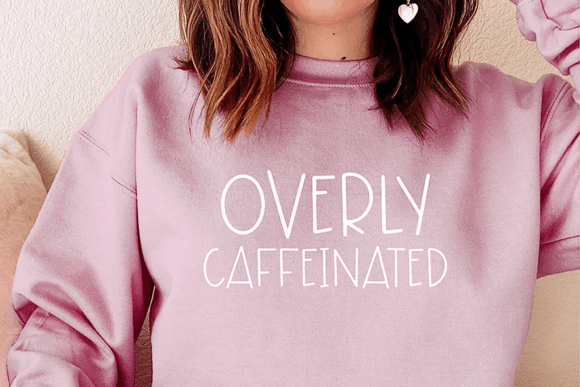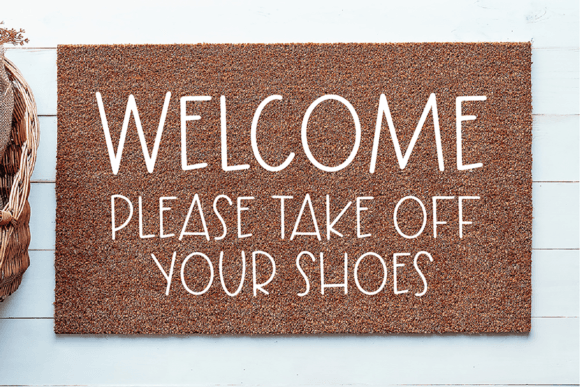
Introduction to Pastry Hearts Font
Have you ever found yourself lost in a creative moment, surrounded by colorful pens, scissors, and scraps of paper? That’s exactly where I was when I stumbled upon the Pastry Hearts Font. Its whimsical design and playful charm instantly captured my heart, making me want to create something beautiful with it.
As a designer, I know how valuable a high-quality design resource can be. The Pastry Hearts Font is perfect for adding a touch of elegance and sophistication to any project. With its transparent background, it’s ideal for use in digital designs, and its free download feature makes it accessible to designers of all levels. Whether you’re working on a crafty project, creating social media graphics, or designing invitations, this font is a must-have in your design arsenal.
With the Pastry Hearts Font, the possibilities are endless. Use it to add a personal touch to your branding, or to create beautiful decorations for your home. Whatever your creative vision, this font is sure to bring it to life in a way that’s both unique and visually stunning.
Key Features of Pastry Hearts Font
- Unique, hand-drawn design with a touch of whimsy, perfect for creative projects.
- High-quality font with transparent background, allowing for seamless integration into various design elements.
- Perfect for adding a touch of elegance and sophistication to your design, making it ideal for wedding invitations, greeting cards, and other creative projects.
Honest Review: Pastry Hearts Font
I recently stumbled upon the Pastry Hearts Font, and I must say it’s been a delightful addition to my design resource library. As a designer, I’m always on the lookout for high-quality fonts that can elevate my creative projects.
What works well with the Pastry Hearts Font is its whimsical and playful feel, making it perfect for designs that need a touch of sweetness. The font is available for free download, which is a major plus for designers on a budget. The Pastry Hearts Font also features a transparent background, allowing for seamless integration with any design element.
Here are some of the key features that I appreciate about the Pastry Hearts Font:
- ✨ Unique and playful design that adds a touch of whimsy to any project
- ✨ Transparent background for easy integration with other design elements
- ⚠️ Limited character set, which may not be ideal for longer text
- ⚠️ Not suitable for formal or professional designs
Overall, I’m impressed with the Pastry Hearts Font and would recommend it to designers working on creative projects that require a touch of playfulness. With its high-quality design and free download, it’s an excellent addition to any design resource library.
To get the most out of Pastry Hearts Font, experiment with different font sizes, colors, and combinations to create unique and eye-catching designs. Consider pairing it with other high-quality fonts for added visual interest.
Pastry Hearts Font is ideal for a variety of creative projects, including wedding invitations, baby shower decorations, and Valentine’s Day cards. Its sweet and feminine design makes it perfect for feminine and romantic themes.